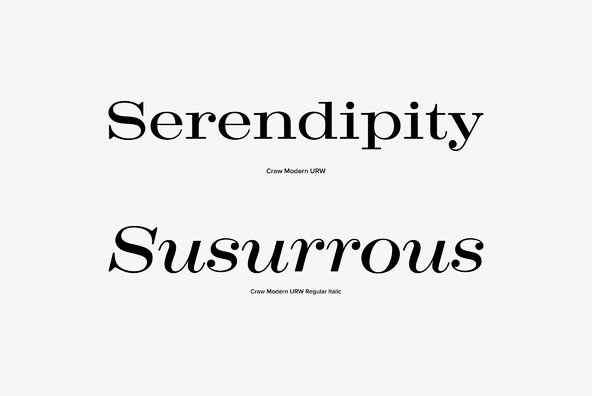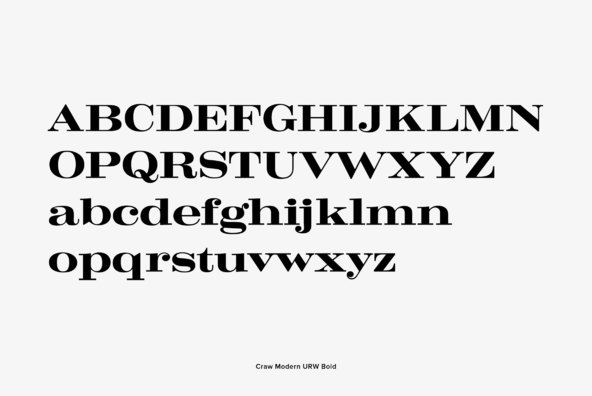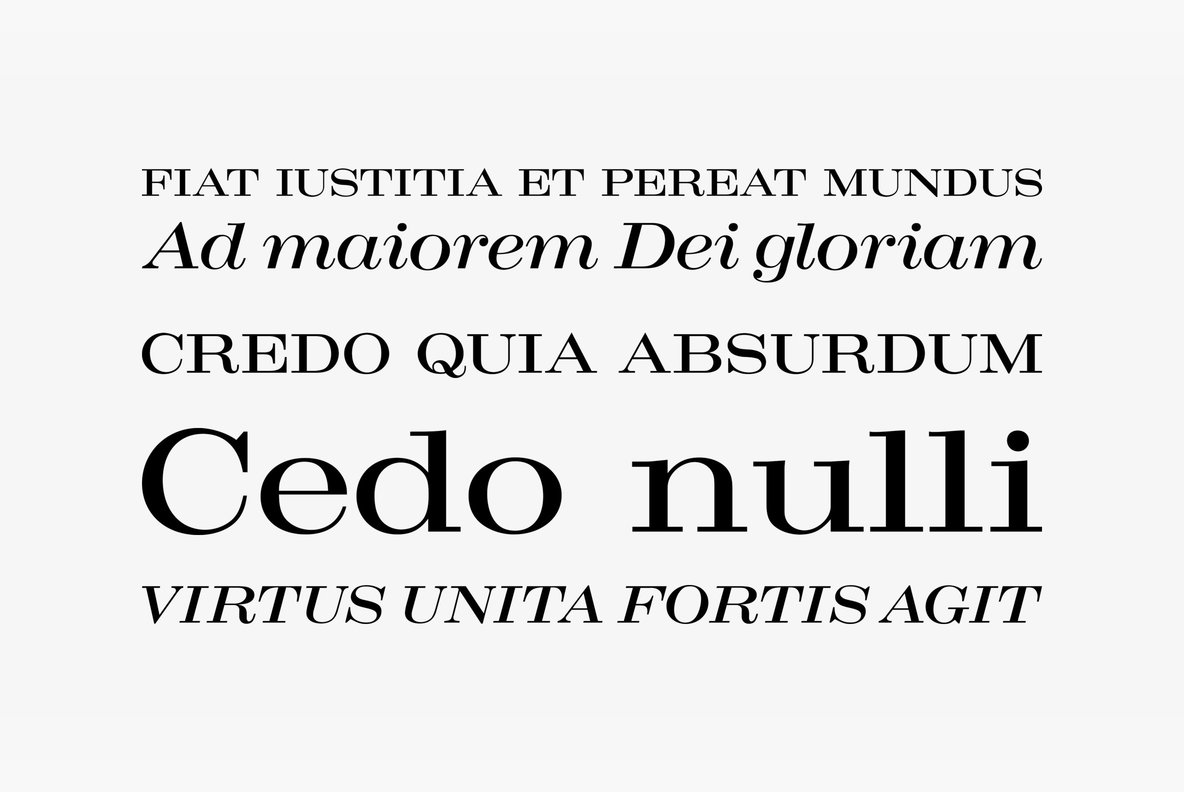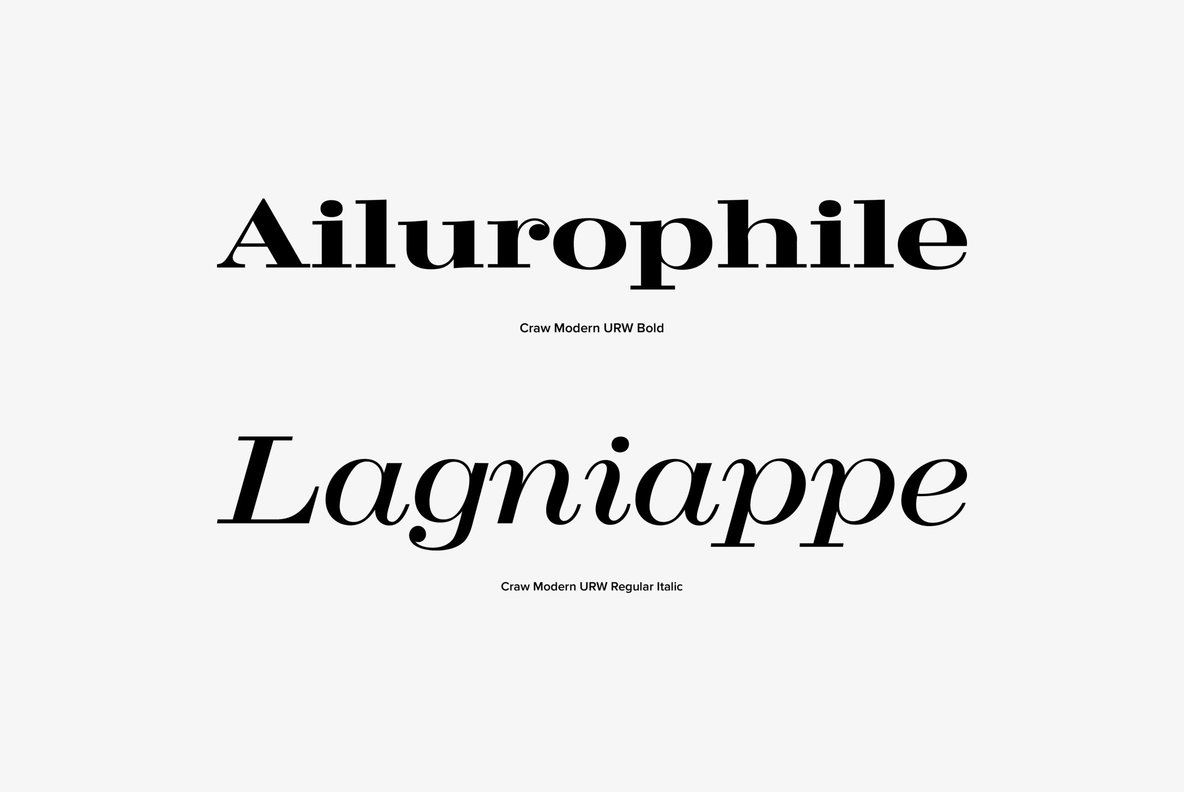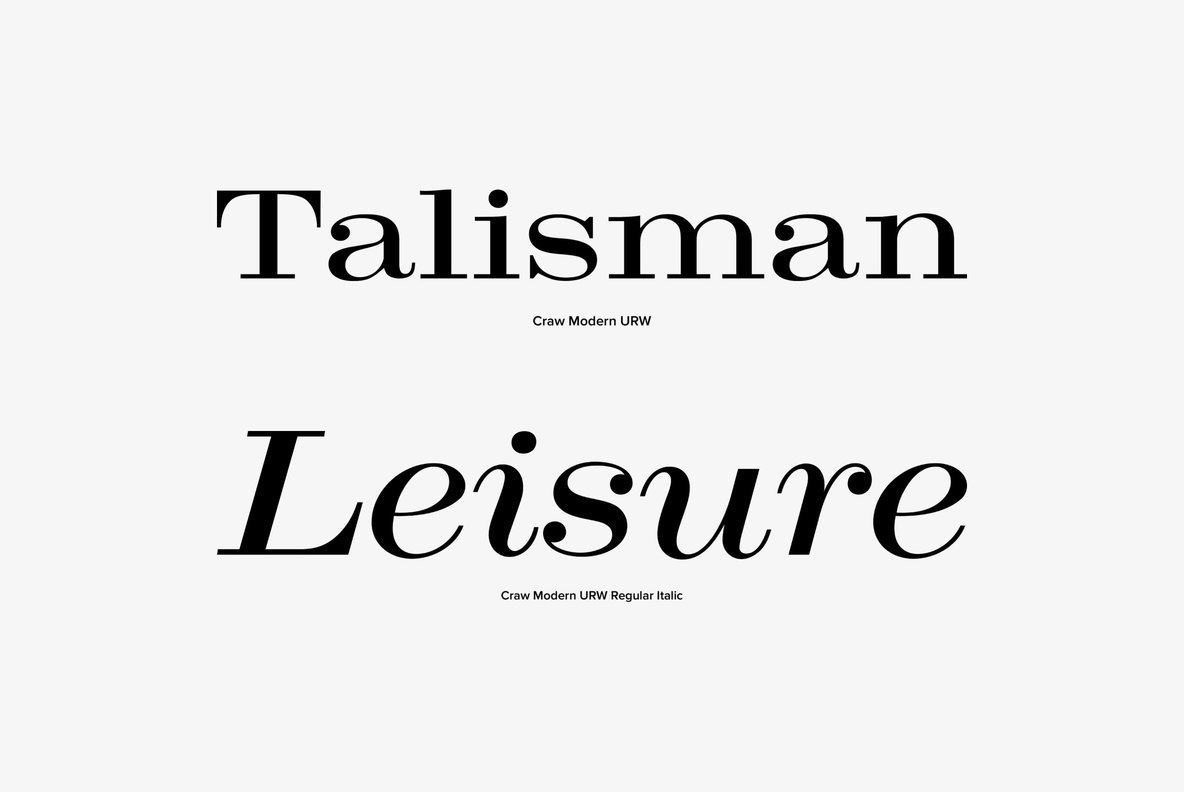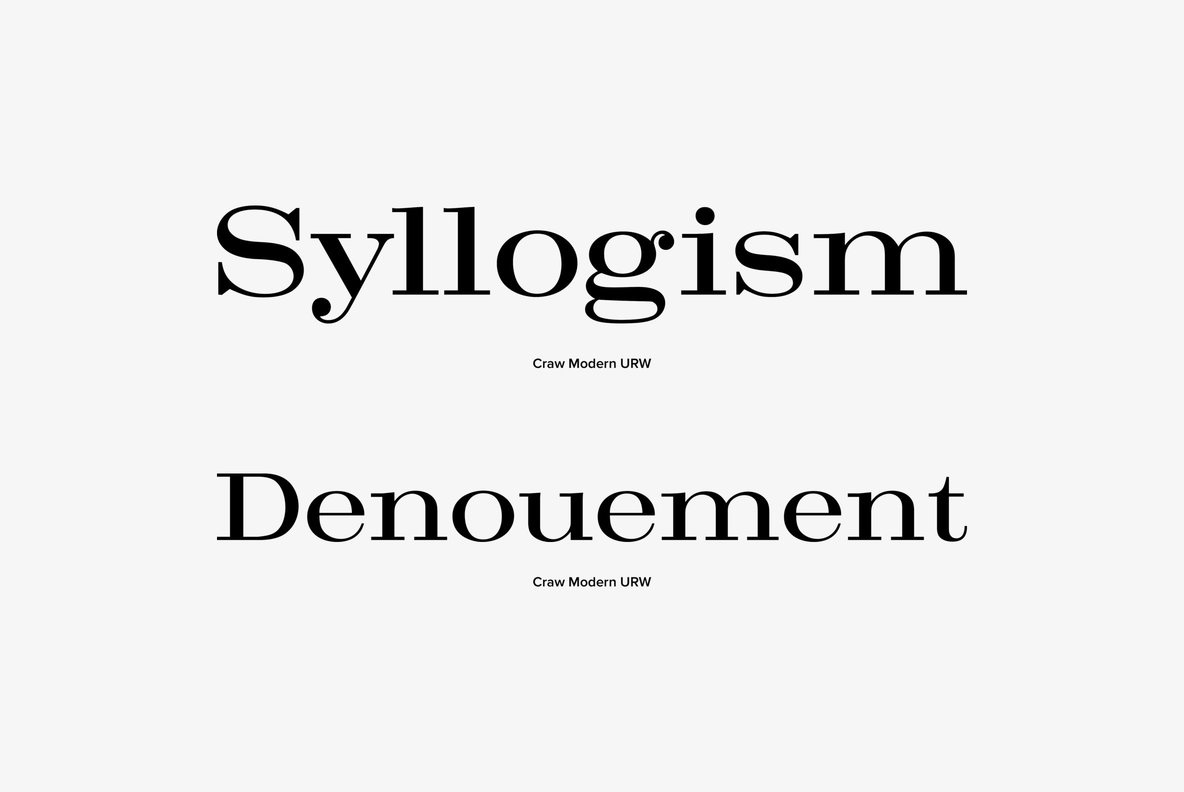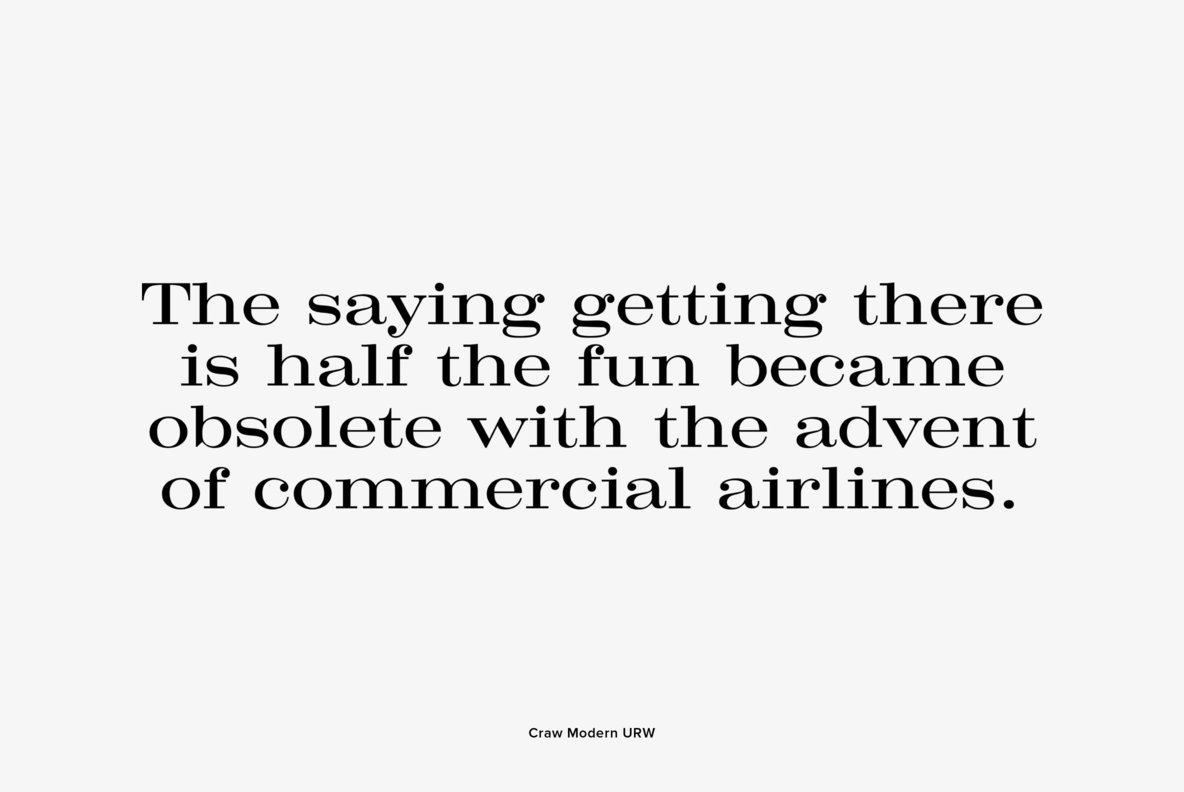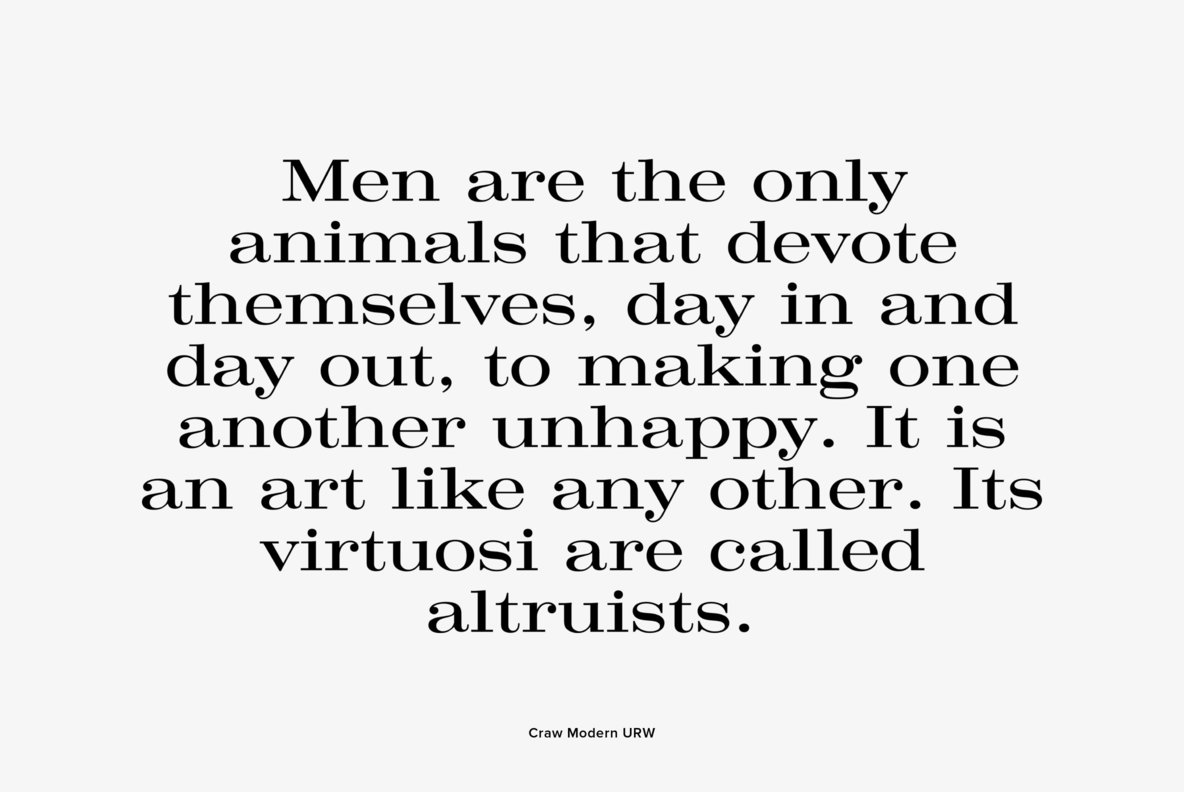
Craw Modern
Designed by Freeman Craw in 1958, Craw Modern is a serif font release by URW. Contains language support for West, East, Turkish, Baltic, and Romanian.